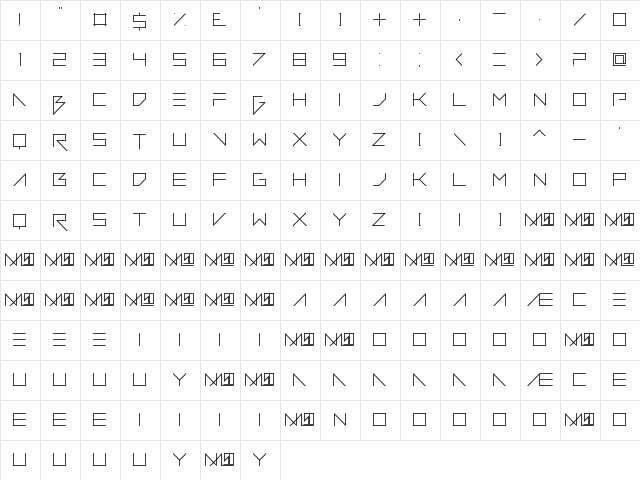
Vermin Vibes Diet Regular Free Font
Vermin Vibes Diet Regular
Designer: Andrew McCluskey
Design Context for Vermin Vibes Diet
Vermin Vibes Diet is a composed and adaptable typeface that performs quietly and consistently across a wide range of design contexts.